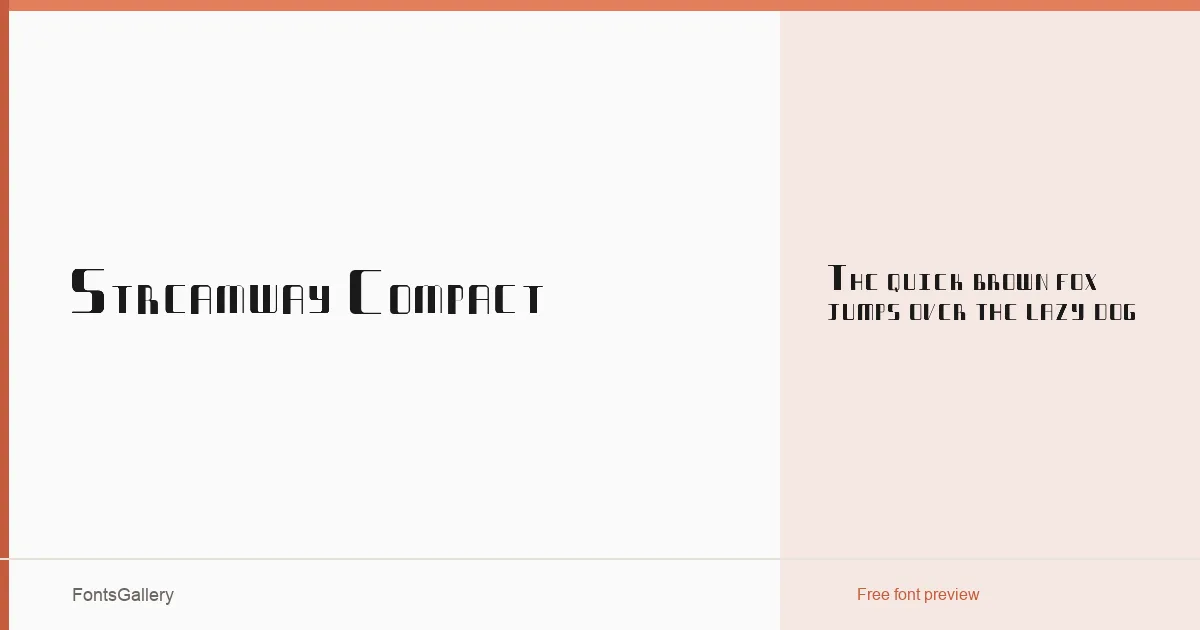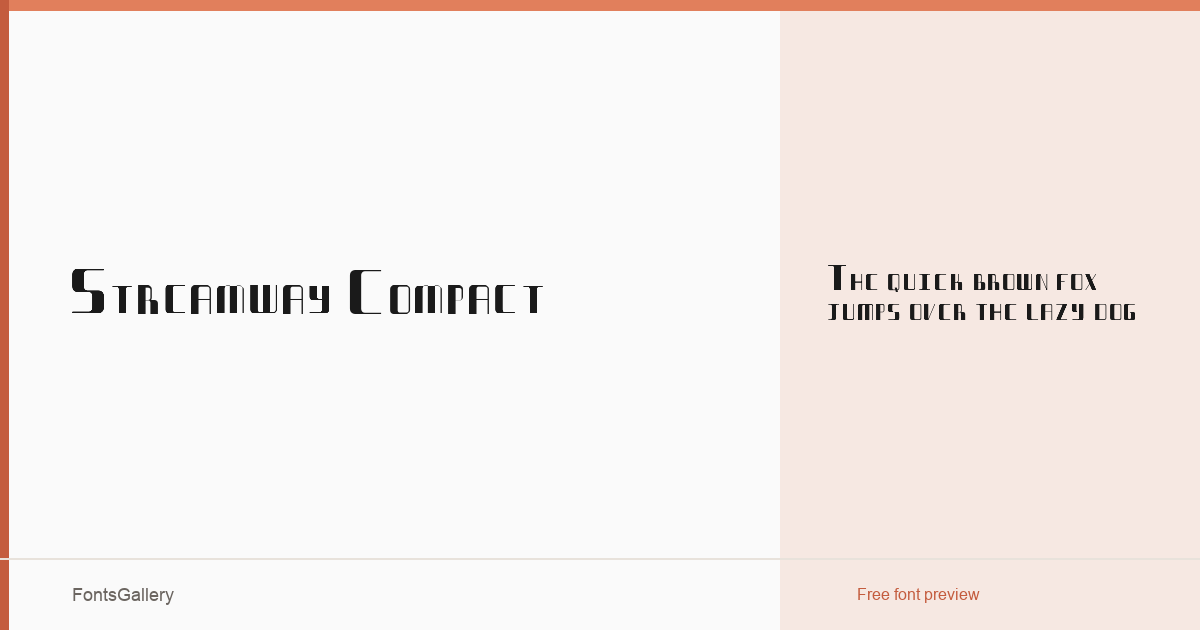
About Streamway Compact Font
Streamway Compact is a display typeface crafted by designer and foundry Ken Flores, built to make a strong and memorable impression across a variety of visual applications. Blending elegance with a bold, vintage sensibility, it carries a classic character that feels both timeless and purposeful. Its compact nature makes it particularly well-suited for contexts where impact and refinement need to coexist.
Streamway Compact draws on a rich tradition of classic display lettering, featuring letterforms that balance bold weight with elegant detailing to evoke a refined, vintage aesthetic. Each character is designed with a sense of confidence and poise, making the typeface feel authoritative without sacrificing charm. The compact proportions lend the font a tight, cohesive rhythm that enhances its visual presence at larger sizes.
Streamway Compact is ideally suited for logos, posters, headlines, branding projects, and magazine layouts where a bold and classic visual statement is required. Its display-oriented design ensures it commands attention while maintaining an air of elegance in editorial and branding contexts. It pairs beautifully with the clean neutrality of Helvetica or the distinctive character of Aresink for versatile and well-balanced typographic compositions.